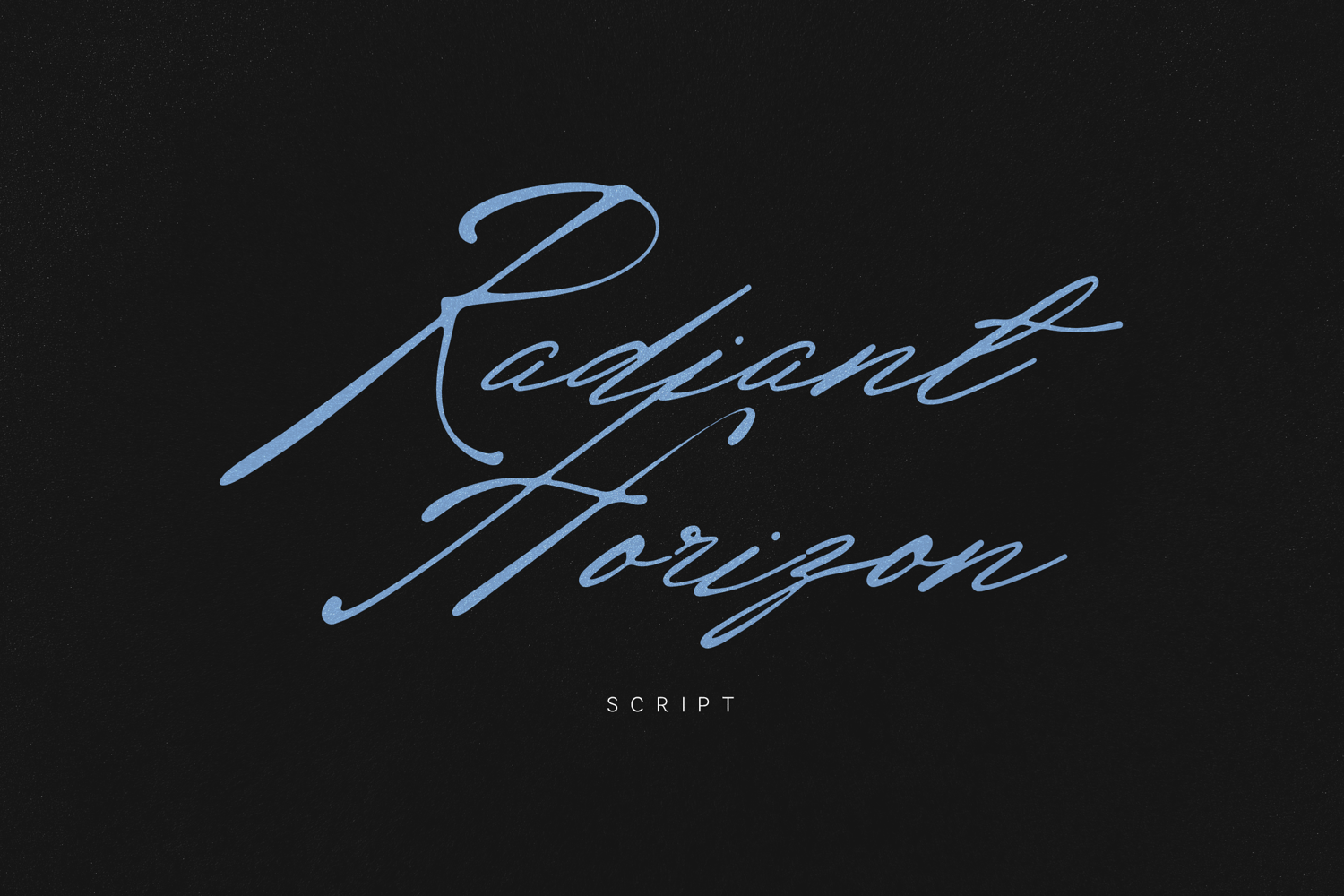
Radiant Horizon Script Signature Font
Radiant Horizon is a refined signature script font inspired by elegant handwriting, flowing ink strokes, and timeless penmanship. Designed with long sweeping lines, graceful connections, and natural movement, it delivers an authentic handwritten appearance that feels both sophisticated and expressive.
Perfect for luxury branding, logos, wedding materials, beauty packaging, photography watermarks, social media graphics, editorial designs, product labels, and premium marketing projects, Radiant Horizon brings a polished touch to every design.
The font features uppercase and lowercase characters, numerals, punctuation, multilingual language support, and beautifully crafted letterforms that flow naturally across words and phrases.
Whether you're creating a fashion brand, boutique identity, wedding invitation, cosmetic label, restaurant branding, or elegant social content, Radiant Horizon adds effortless charm and handwritten sophistication.